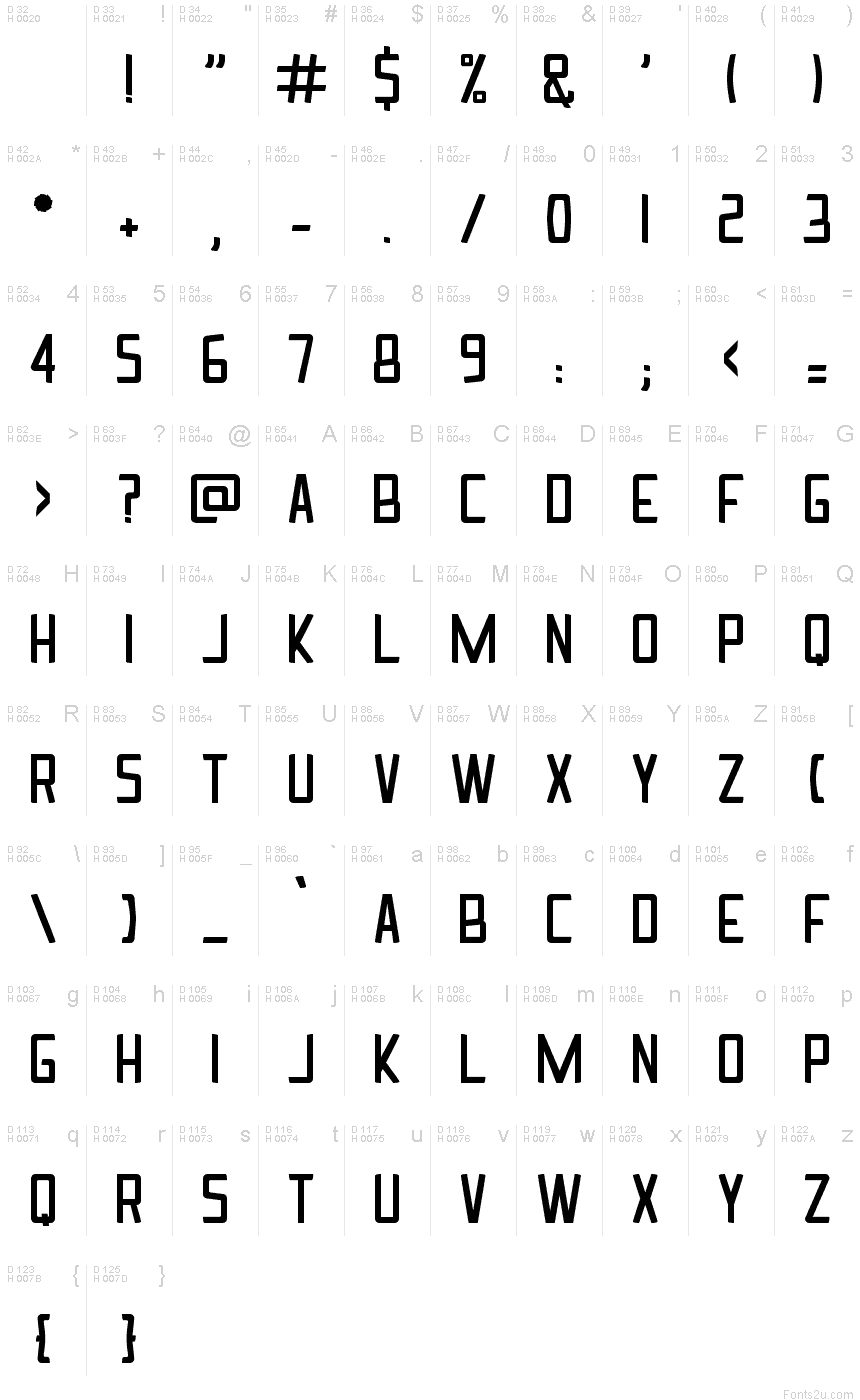
Ingrata by Elvis H. Martuchelli of A Falange studio is a free condensed sans serif display font with towering capitals and abrupt angular cuts. Its uneven stroke widths and tight construction create a stark, poster-like silhouette.
Against geometric illustration or photography, the narrow lettering can read as part of the image, making it apt for music posters and editorial covers. Its severe shapes also suit fashion branding and record packaging, where the type can become a recognizable product mark.